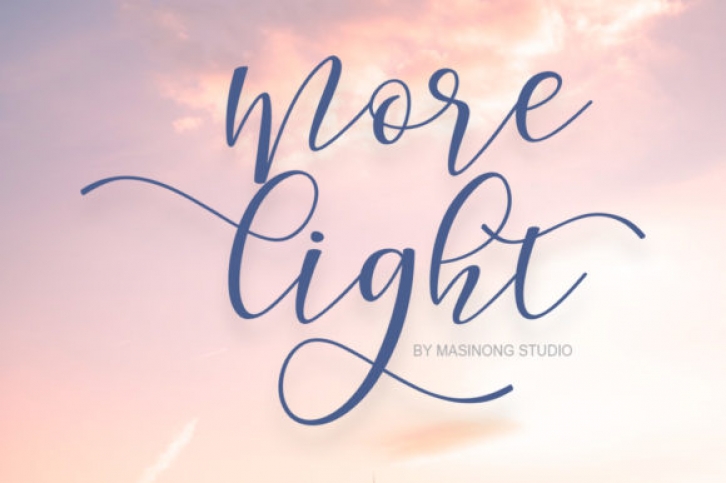
The Morelight is a modern calligraphy script. It has an amazing handwritten touch with decorative characters and a dancing baseline.
It’s perfect for greeting cards, branding materials, business cards, quotes, posters, and more!!